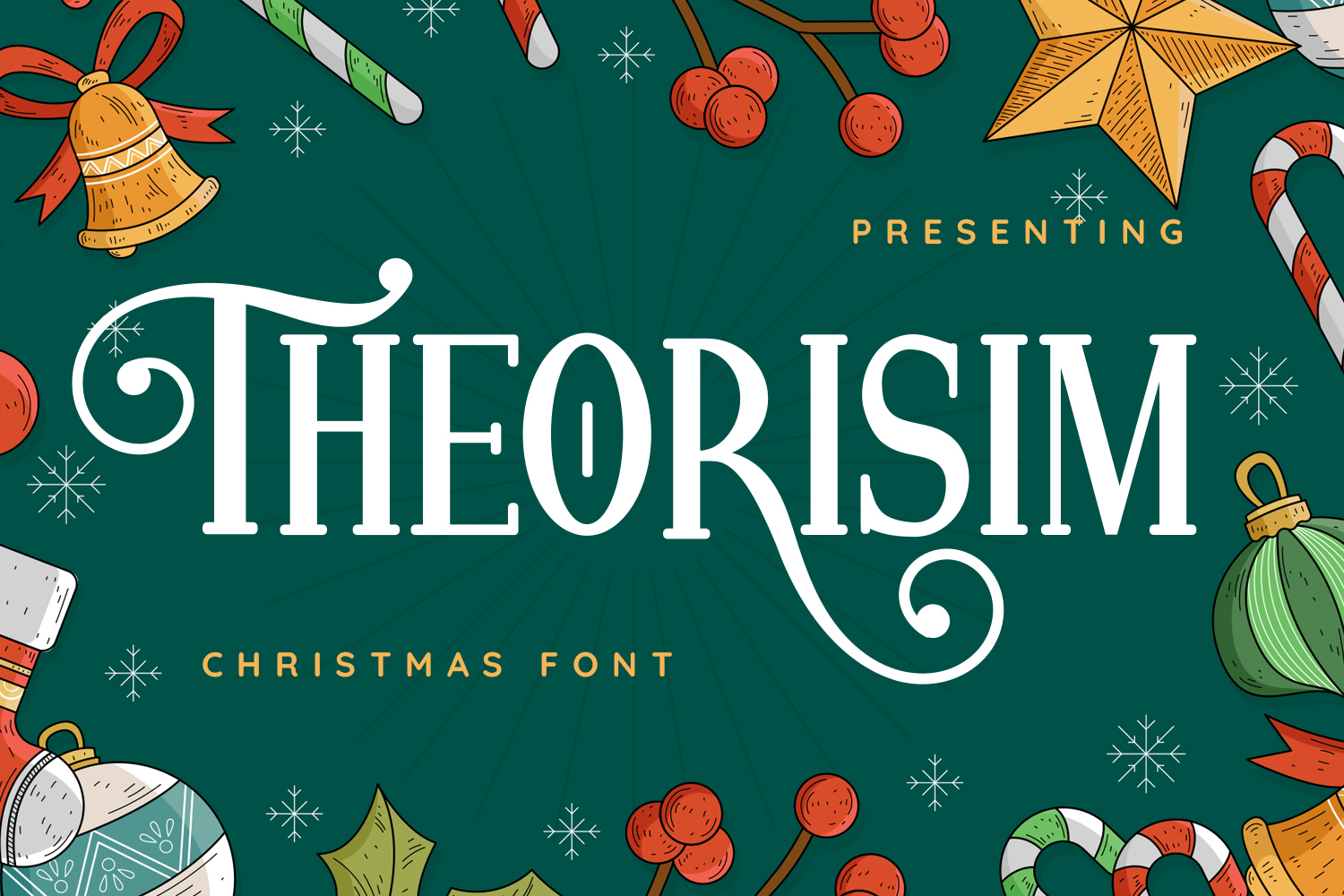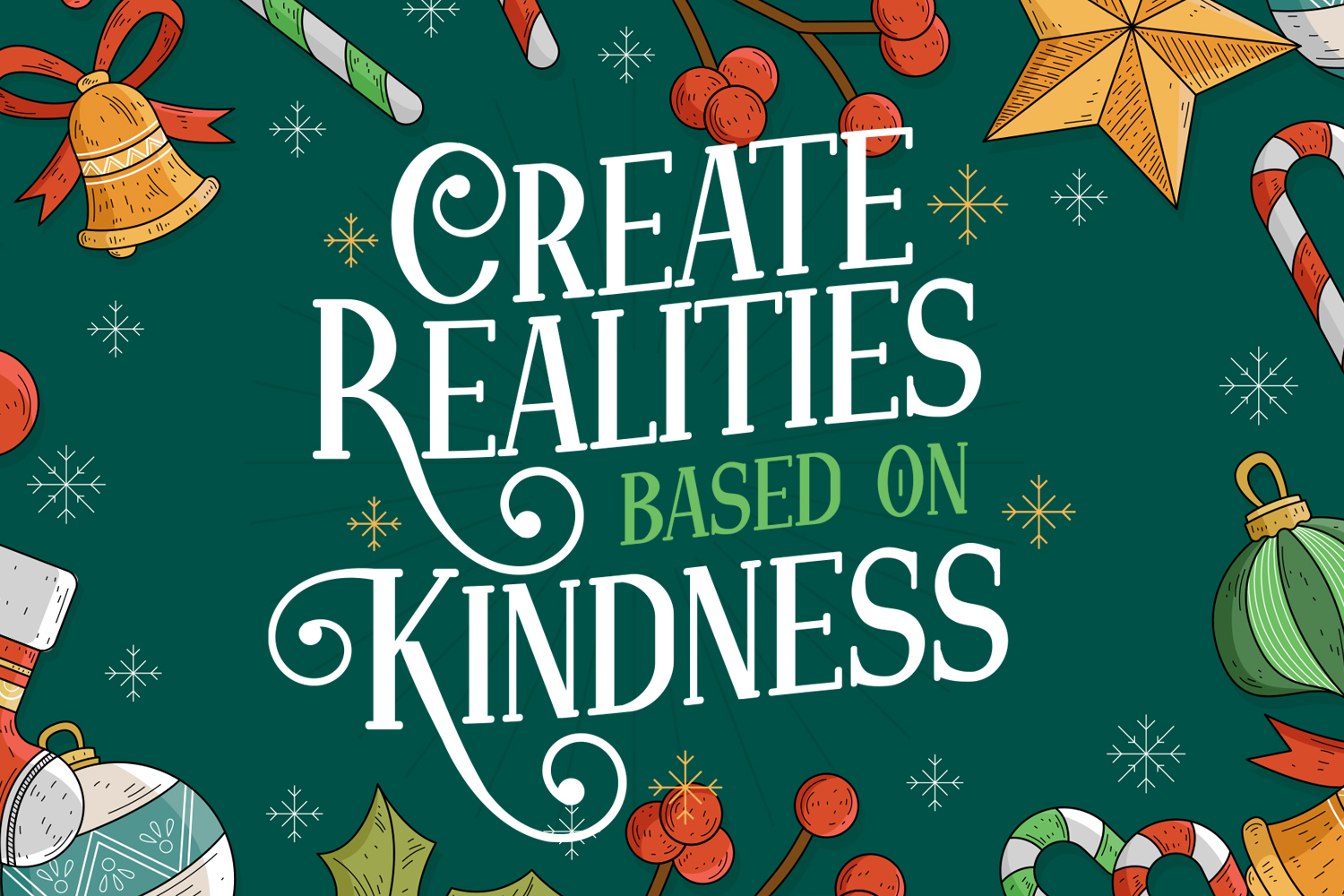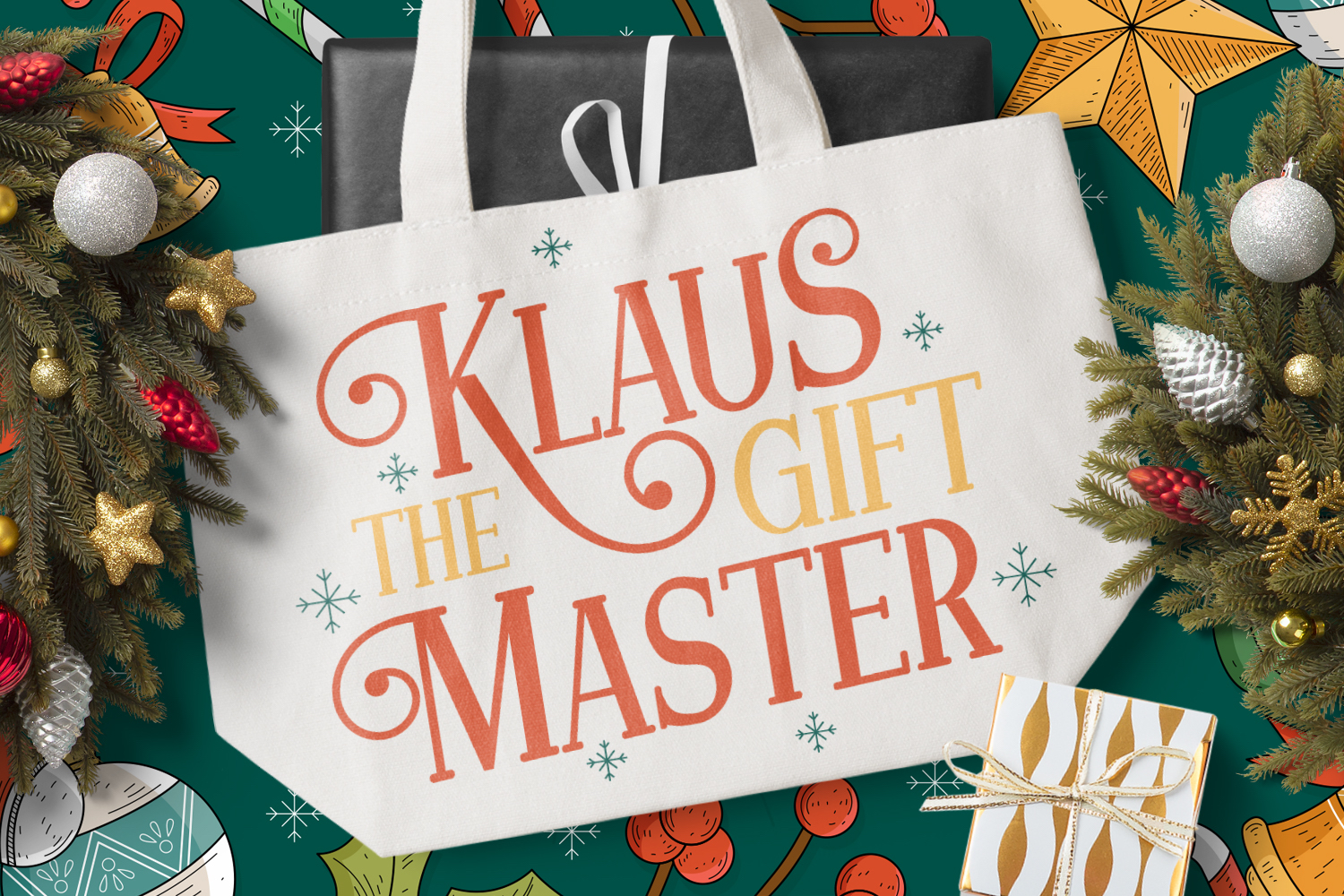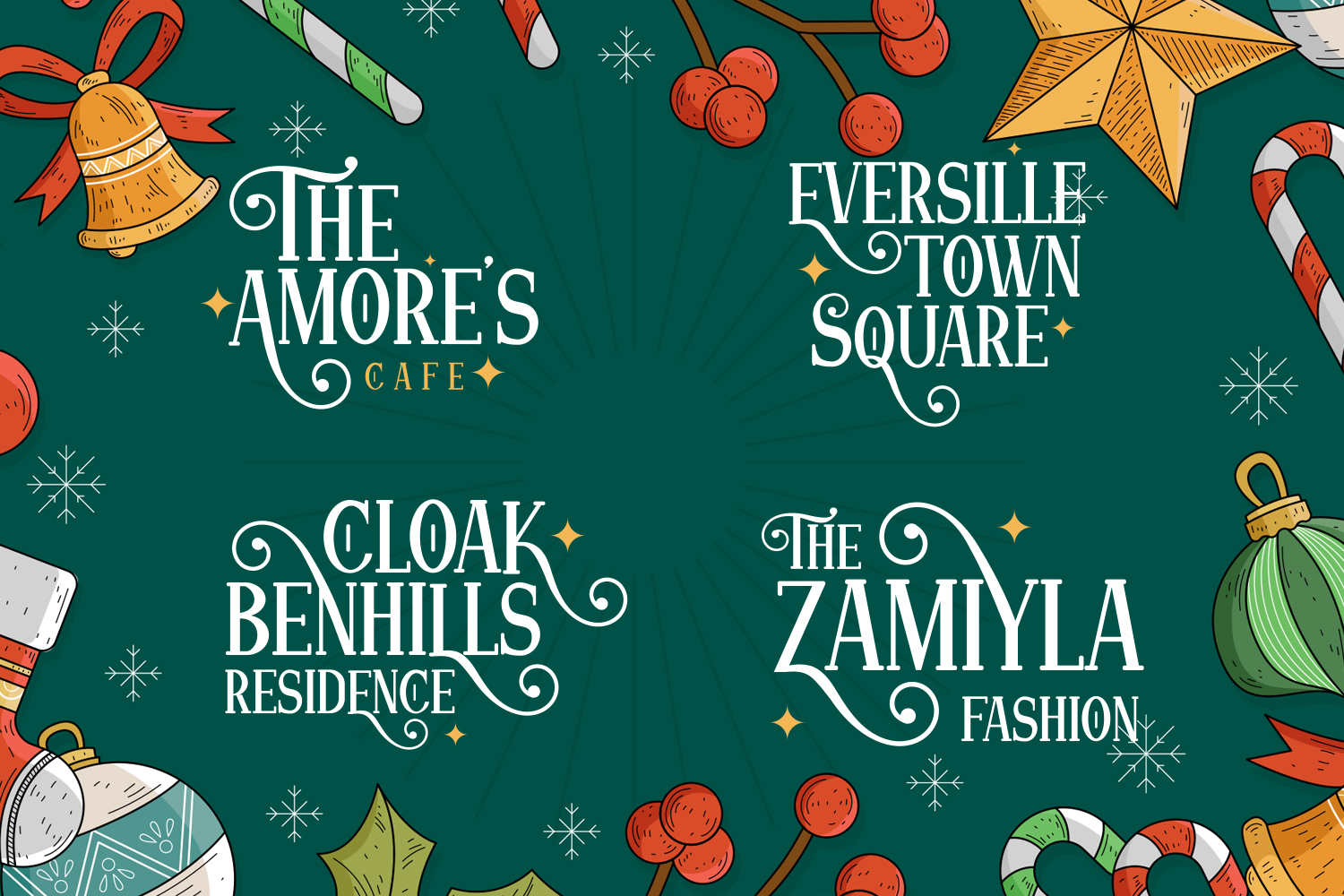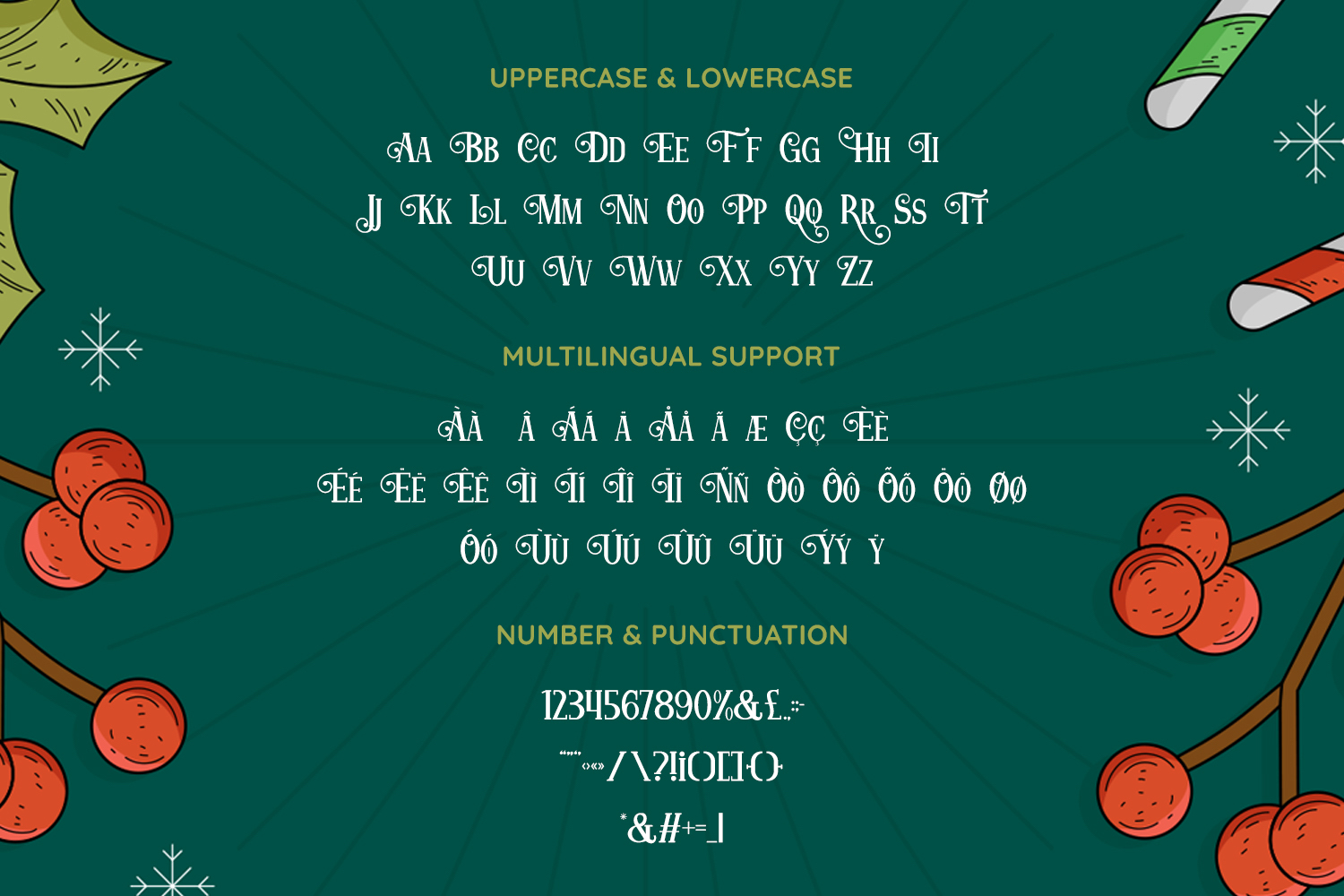
Theorisim is a festive display serif font crafted to bring holiday cheer and elegance to your designs. With its tall, bold structure and stylish swashes on select letters, it offers a playful yet refined aesthetic, perfect for seasonal projects. Its balanced proportions and carefully designed ligatures enhance both readability and decorative flair, making it ideal for headlines, greeting cards, merchandise, and branding.
Designed with multilingual support and complete punctuation, Theorisim is versatile enough for both digital and print media. Whether you’re creating Christmas-themed invitations, signage, or gift tags, this font delivers charm and sophistication in every letterform. Let Theorisim be the magical touch that completes your holiday compositions.
Theorisim